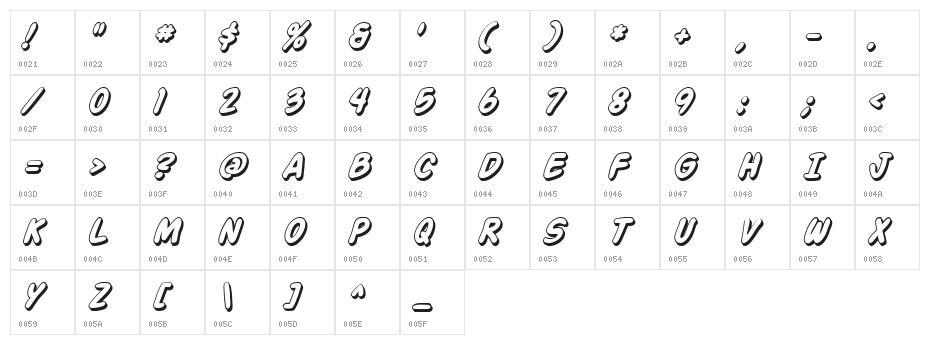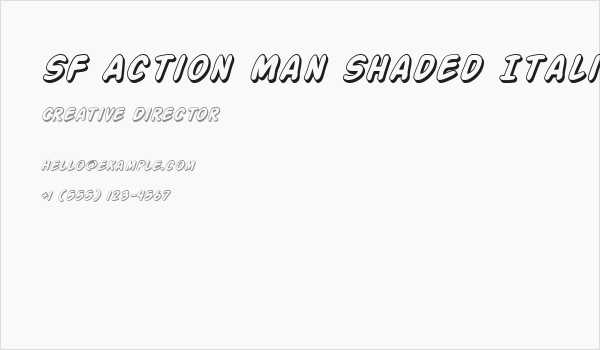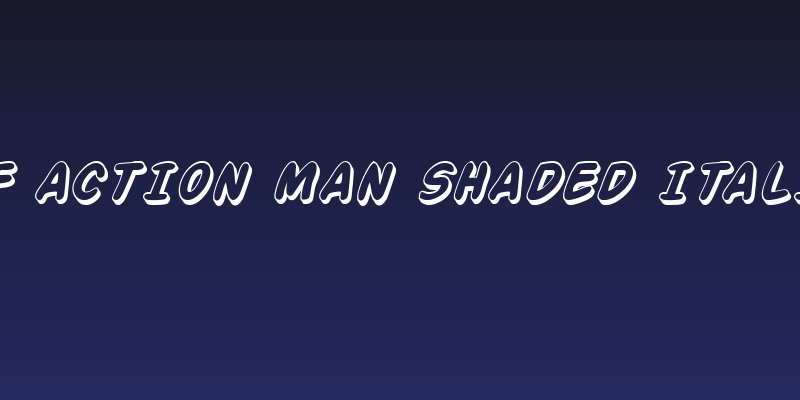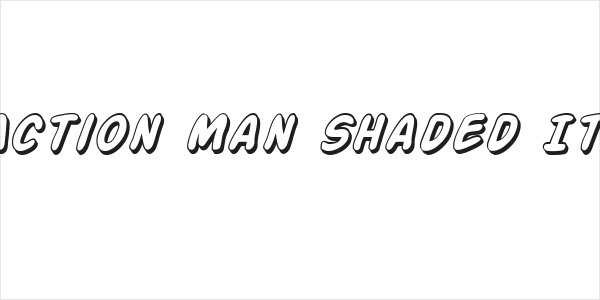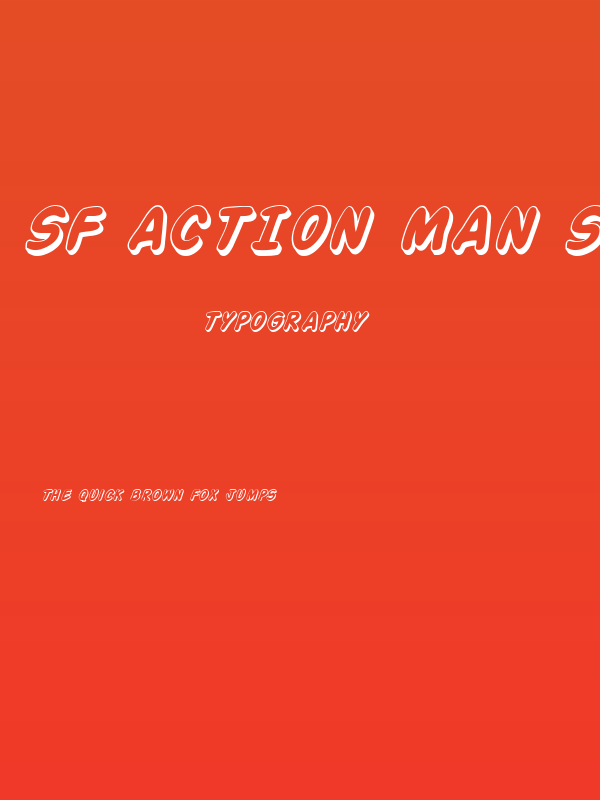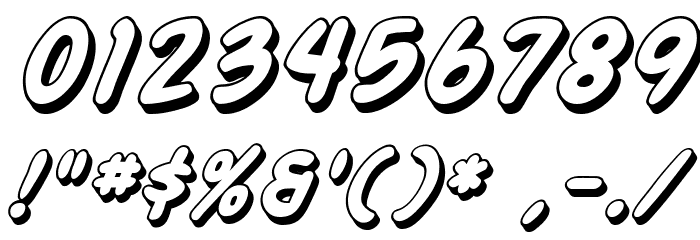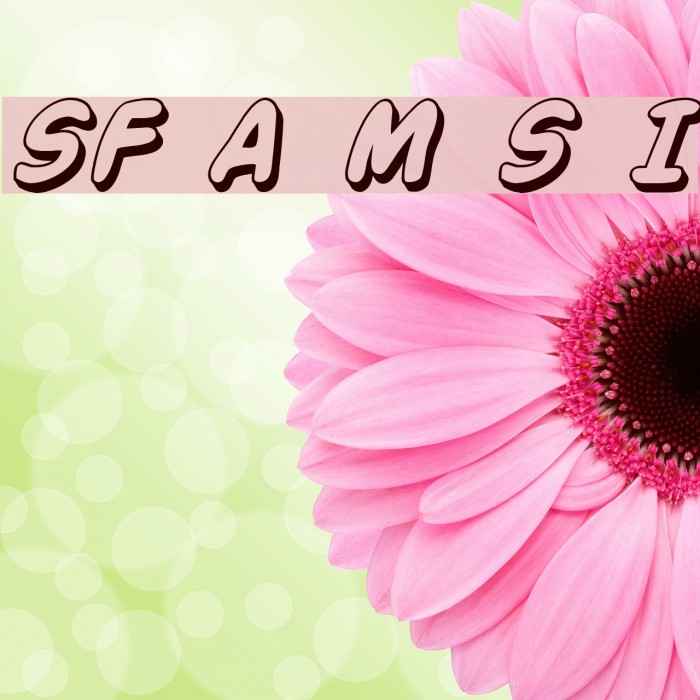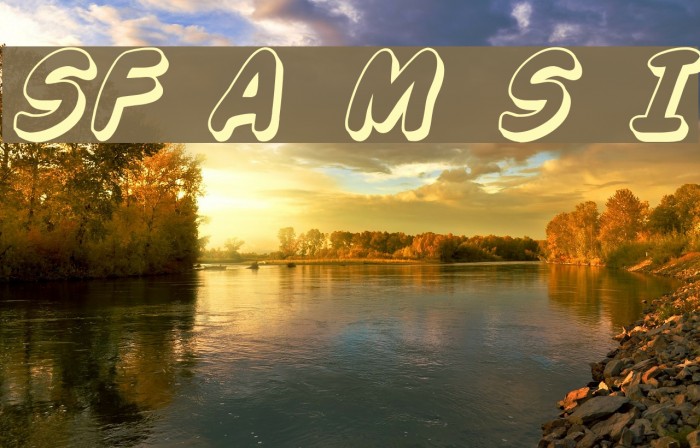
SF Action Man Shaded Italic Font
SF Action Man Shaded Italic Description
This font features a bold, playful style with a distinct shaded effect that adds depth and dimension to each character. The letters are italicized, giving them a dynamic and energetic appearance. The strokes are thick and rounded, contributing to a friendly and approachable feel. The shading is consistent across all characters, enhancing the 3D effect and making the text stand out. This font is well-suited for eye-catching designs and projects that require a fun and engaging look.
| Overall Style | Playful and Dynamic |
| Proposed Projects | Ideal for comic books, children's books, posters, and playful branding projects. |